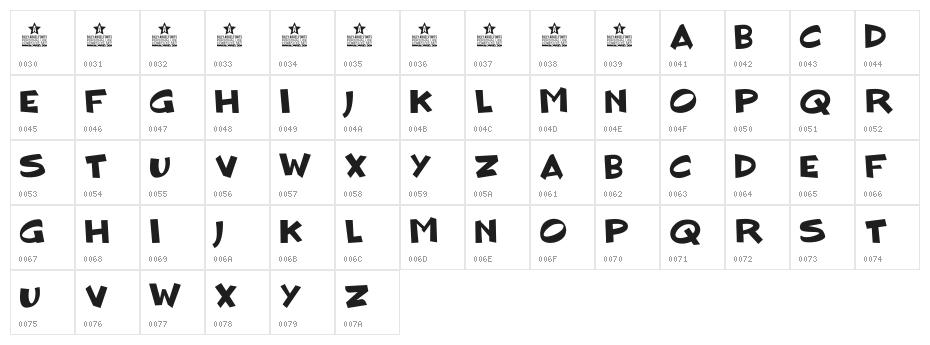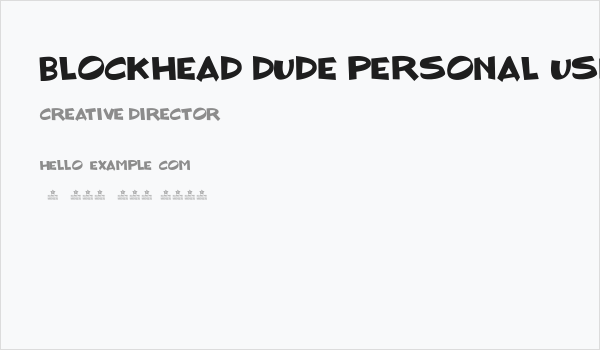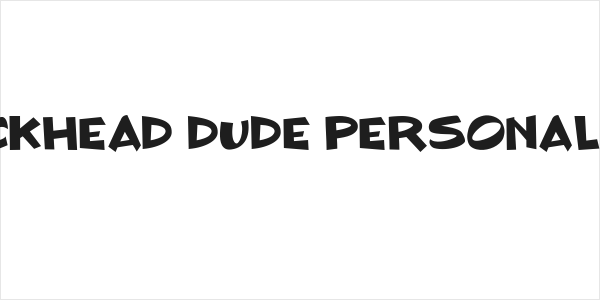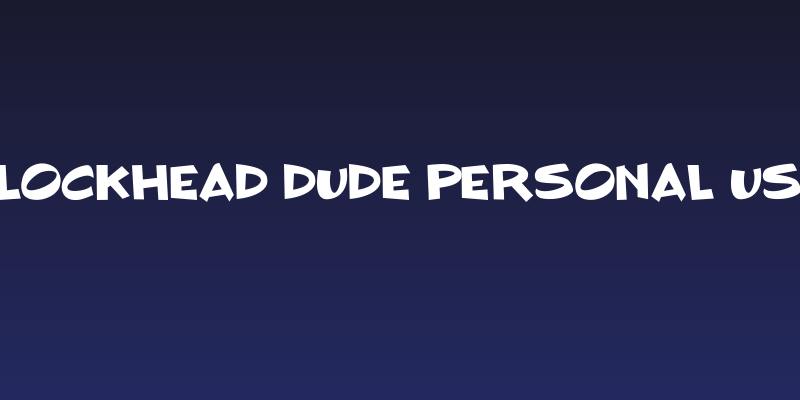
BLOCKHEAD DUDE Personal Use Font
BLOCKHEAD DUDE Personal Use Description
This font features bold, playful characters with a cartoonish and dynamic appearance. The letters are slightly irregular, giving them a lively and informal feel. The strokes are thick and consistent, contributing to a strong visual impact. The overall design is reminiscent of comic book lettering, making it suitable for projects that require a fun and engaging aesthetic. The uppercase and lowercase letters maintain a consistent style, ensuring readability while adding a touch of whimsy.
| Overall Style | Playful, Comic |
| Proposed Projects | Ideal for comic books, children's books, posters, and playful branding. |